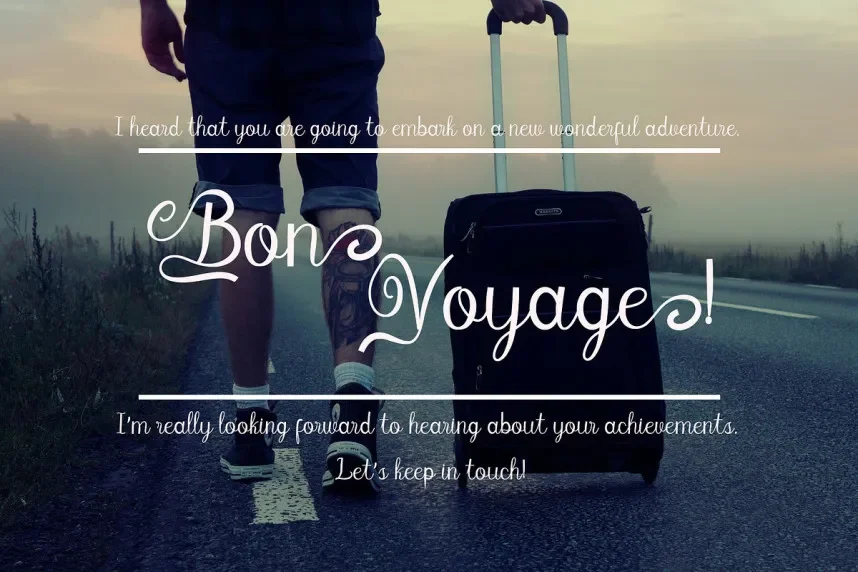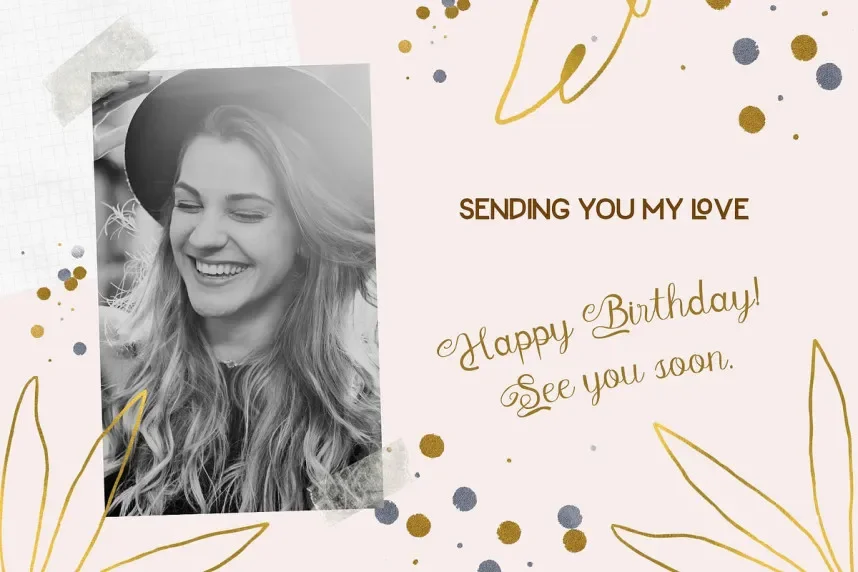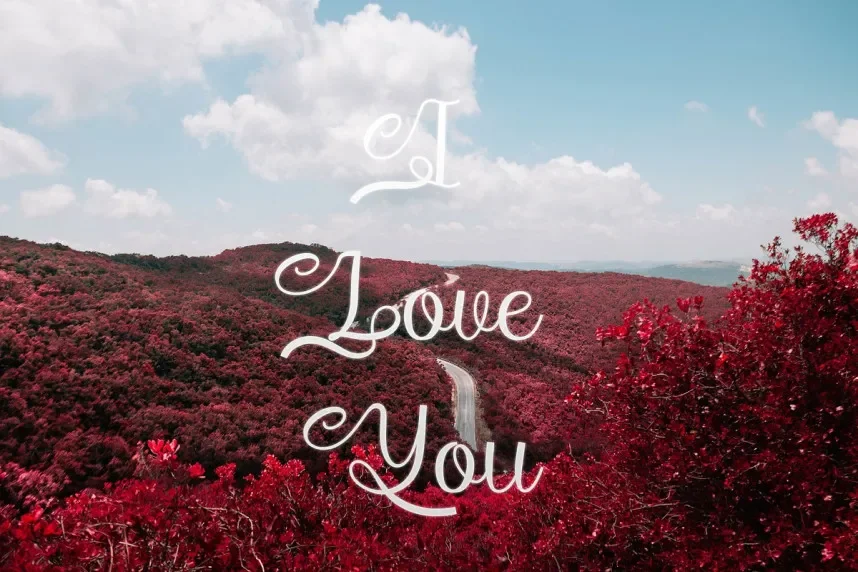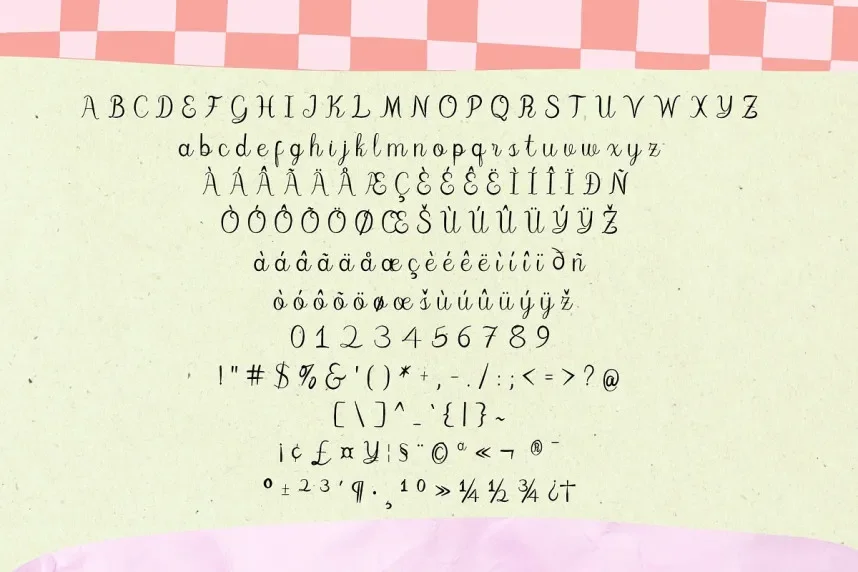
Cedurio Font is a clean, versatile sans-serif typeface known for its modern design and readability. This font is perfect for digital designs, website headings, and body text, offering a professional look without sacrificing clarity.
Best used for UI design, branding, and website copy, Cedurio Font pairs well with both serif fonts for contrast and other sans-serifs for a clean, unified aesthetic. Available in TTF and OTF formats, Cedurio Font includes a commercial-use license. Be sure to check the licensing terms for commercial use.